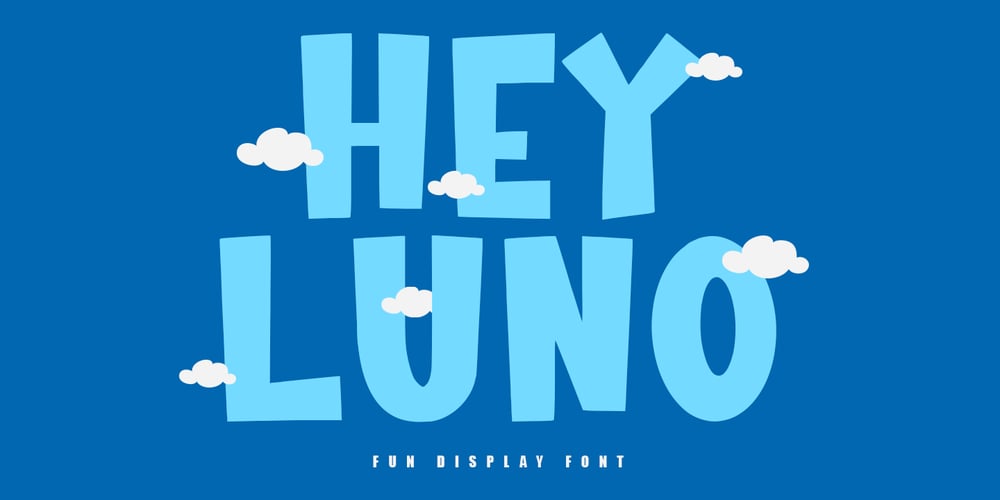
MC Hey Luno Font Family was designed by Gilang Maulana and published by Maulana Creative. MC Hey Luno contains 1 styles and family package options. Hey Luno fun cartoon display font, fun character with alternates to give you an extra creative work. Hey Luno fun cartoon display font support multilingual language.Many Thanks,Maulana Creative